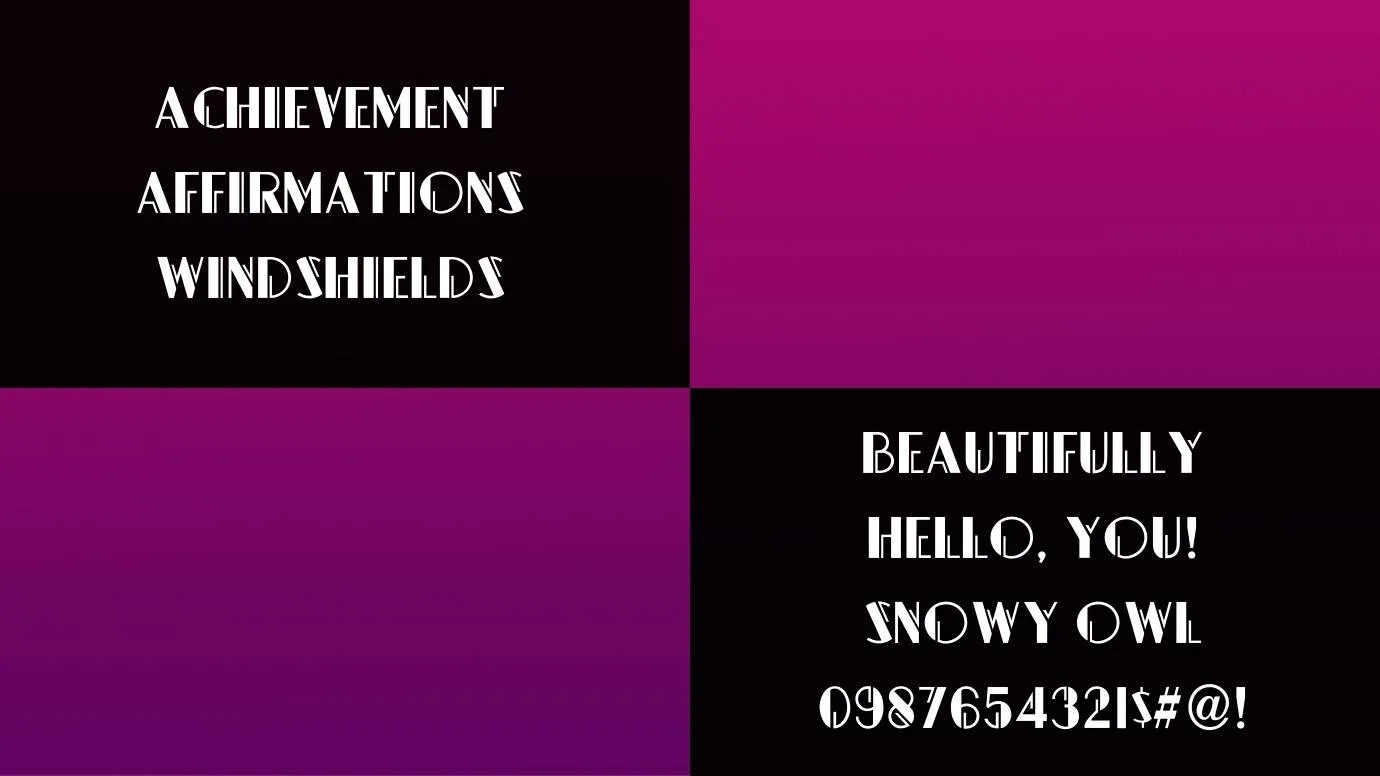
If you are looking for a decorative typeface with a vintage feel, then Grock Font is the perfect choice for you. Grock typeface is a decorative typeface. This typeface is inspired by the classic grotesques.
Grock typeface is available in two weights, Regular and Bold. Grock typeface is perfect for creating vintage-themed designs. It can be used for logos, headers, posters, and other display purposes. You can also use this typeface on magazine covers, book titles, fashion designs, and brochures.
Grock typeface has a complete set of characters including uppercase, lowercase, ligatures, numbers, and punctuation marks. The typeface includes a full set of Latin characters, as well as support for Cyrillic languages. This typeface looks like the liner font.
Designer of Grock Font
This beautiful and stunning typeface is created by Indonesian typeface designer Choirul Masruroh for the foundry NGE Font in 2022.
This font style is designed with an exclusive and consistent style. This single attractive style is a mixture of different characteristics, containing upper- and lower-case alphabets, digits, special characters, glyphs, punctuations, symbols, and a lot of language support.
| Name | Grock Font |
| Style | Decorative |
| Designer | Choirul Masruroh |
| Foundry | NGE Font |
Where is the Grock typeface used?
Grock typeface is perfect for creating vintage-themed designs. It can be used for logos, headers, posters, and other display purposes.
Is Grock Font legible?
Yes, Grock typeface is a highly legible typeface. It has a large x-height and wide proportions which makes it easy to read in small sizes.